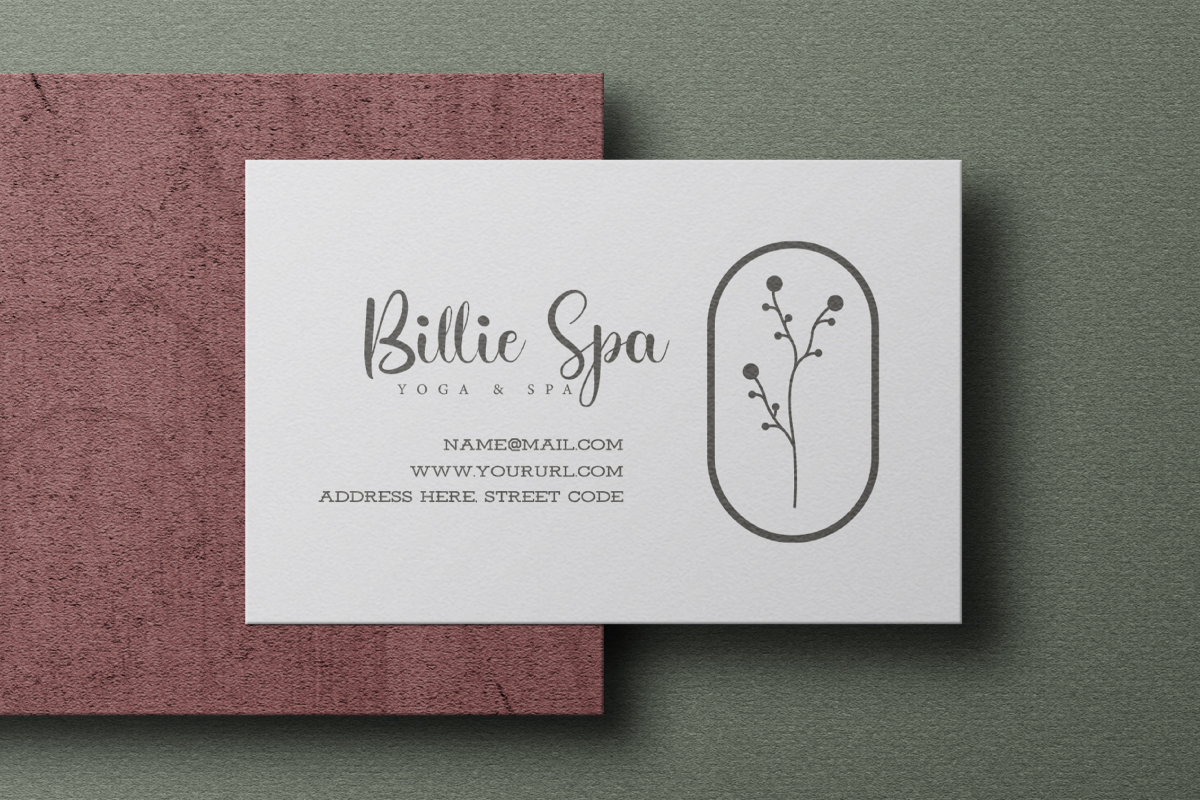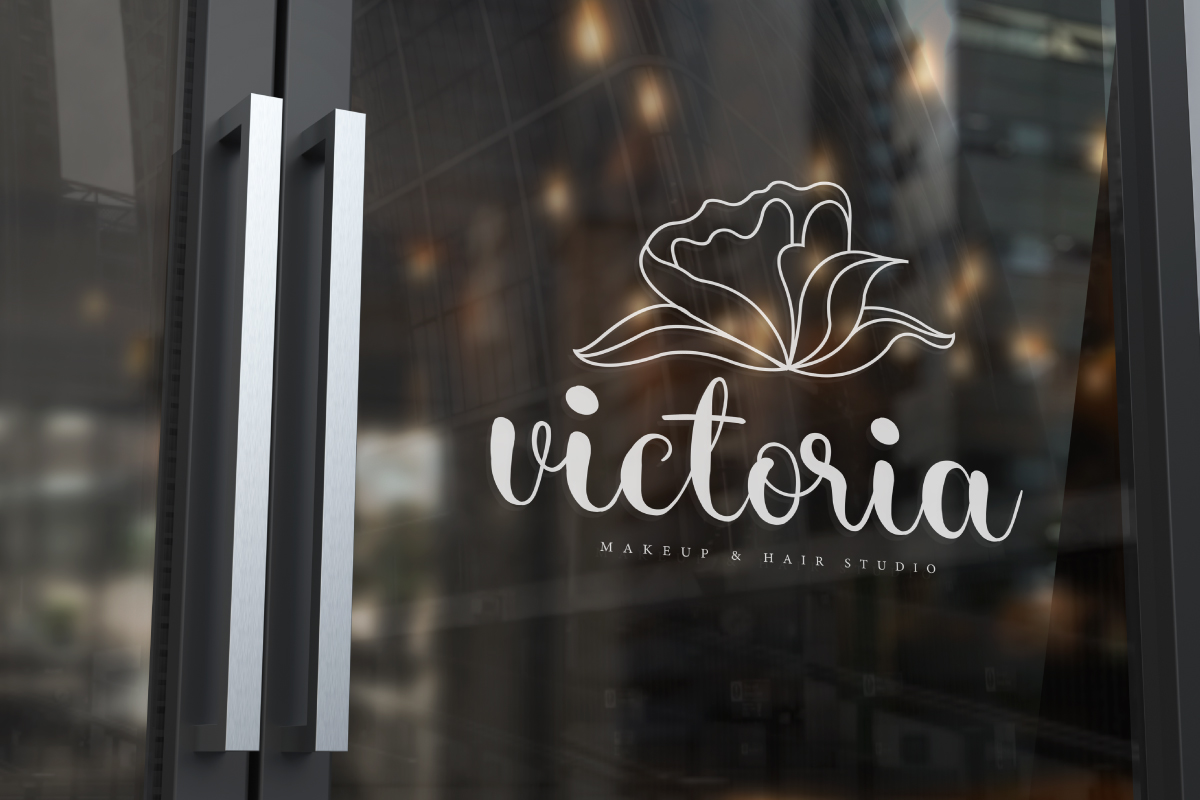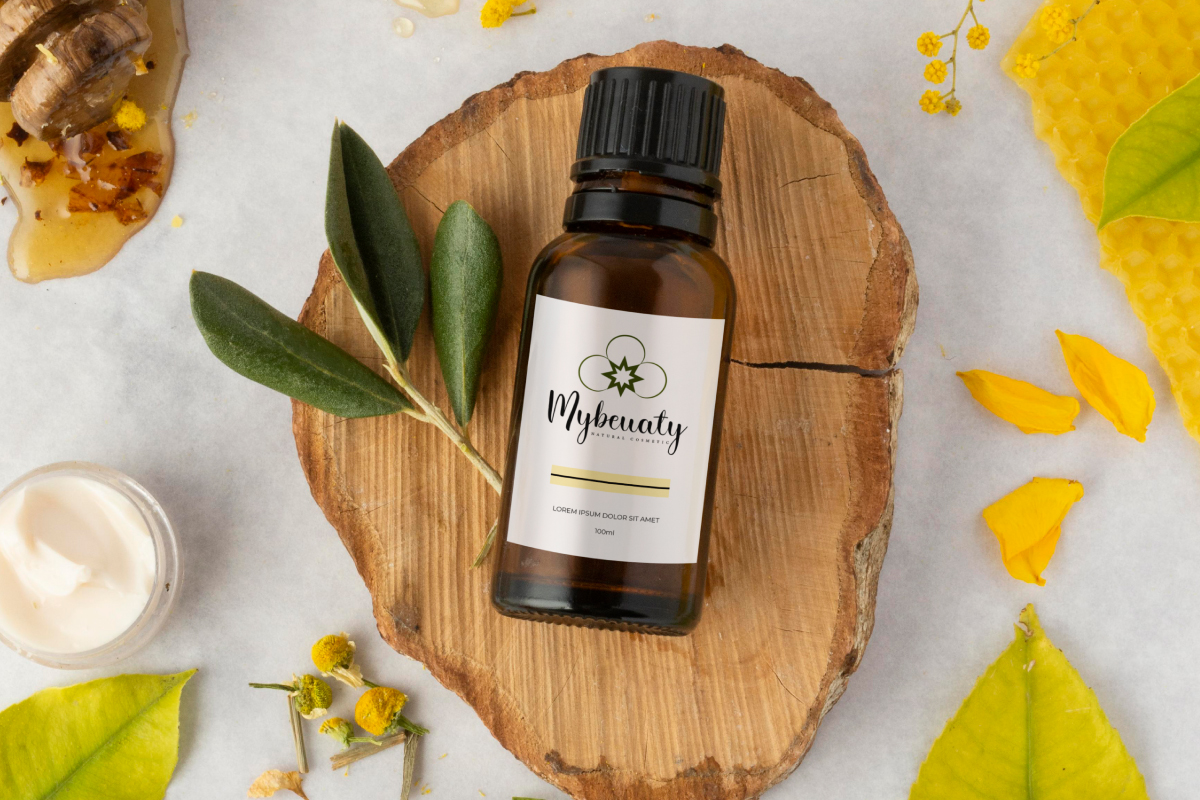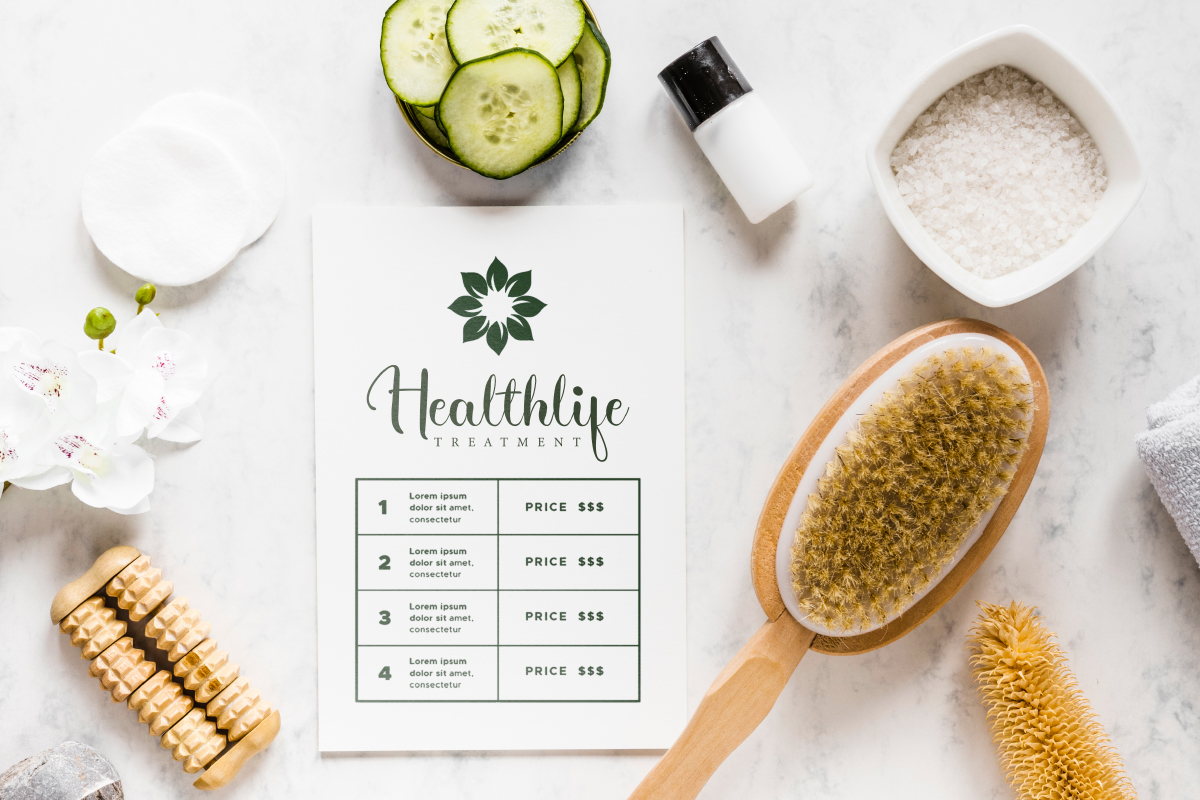
Suffragist Font
Suffragist Script Font is a casual script with an elegant look, created by CalligraphyFonts. This font is carefully crafted to create a flawless form and readings that will be suitable for your creative projects, such as brand logo, brochure, business card, invitation, label, quote, signage, stationery, sticker, title, website, etc.